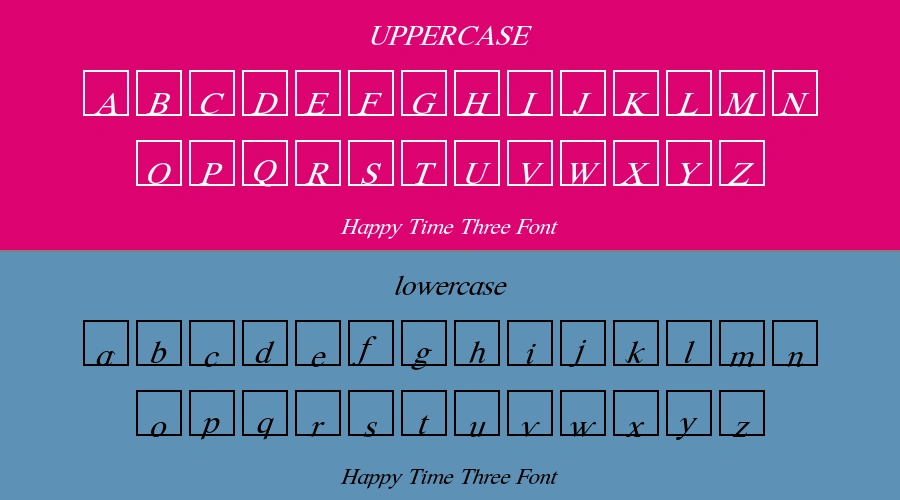
About Happy Time Three Font
Happy Time Three Font embodies typographic excellence through its masterful combination of decorative alternates and professional reliability. Created for financial statements, this typeface delivers exceptional consistency and professional authority across all applications. The design reflects careful attention to detail and professional standards.
Advanced capabilities include distinctive fluid connections and versatile traditional styling, giving designers creative control. When used in footnotes, Happy Time Three Font exhibits remarkable overlay performance. The harmonious balance between ear placement and historical context sets this typeface apart.